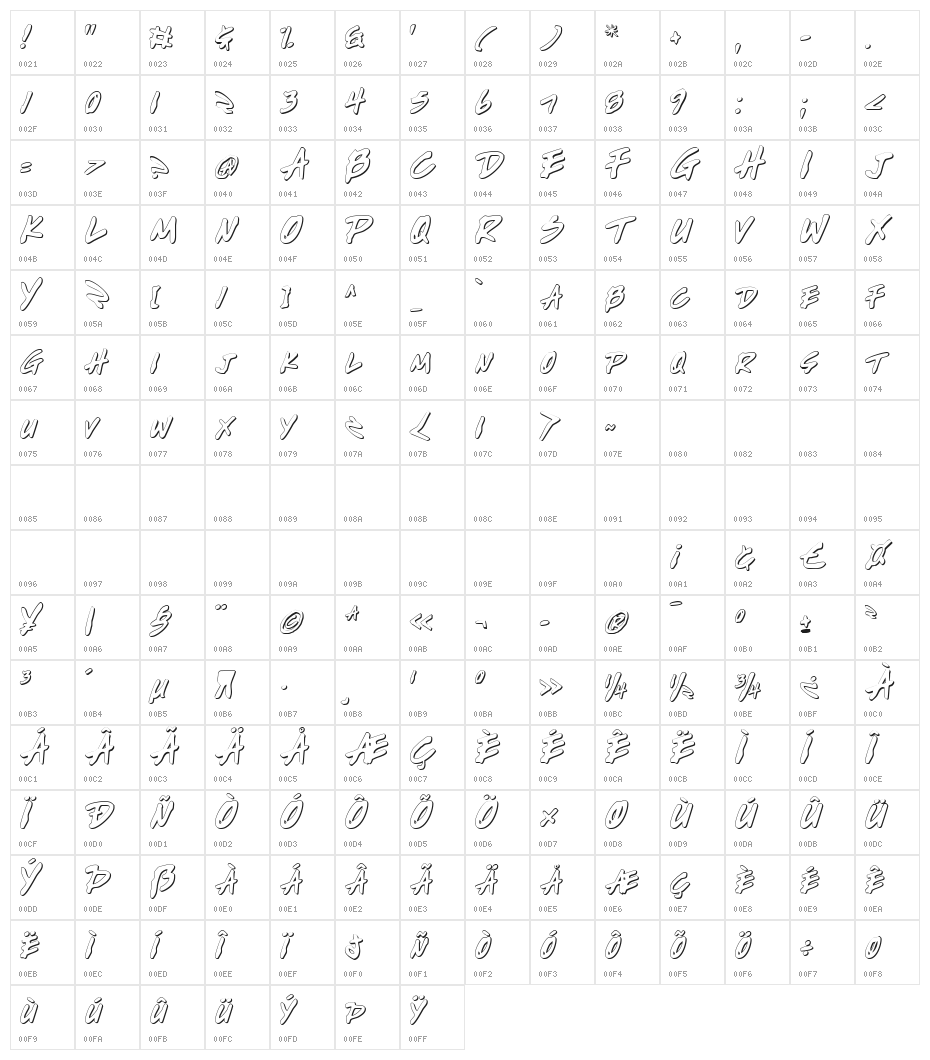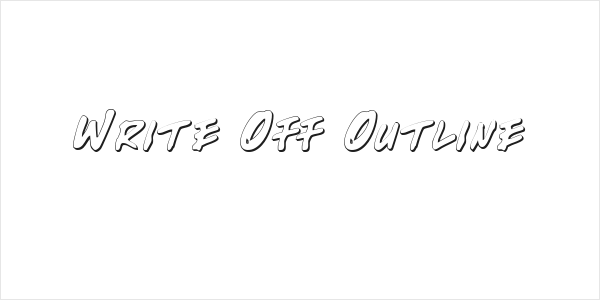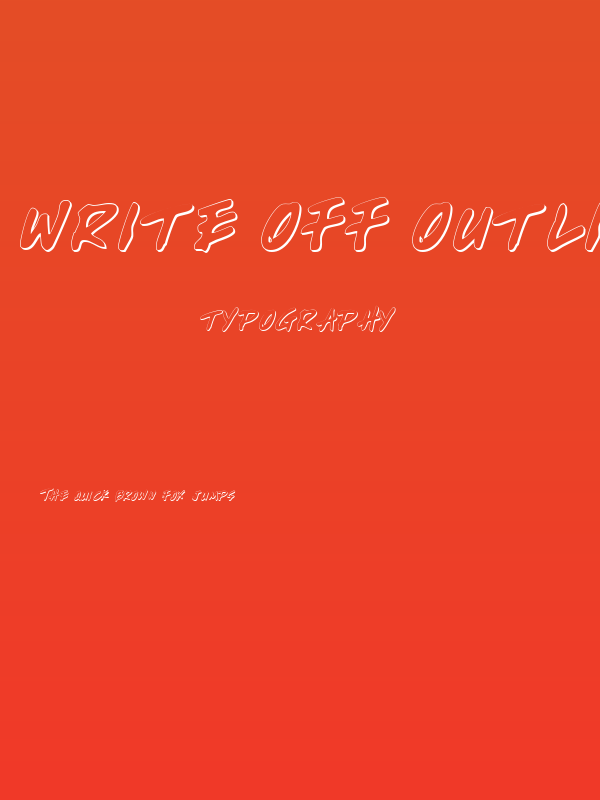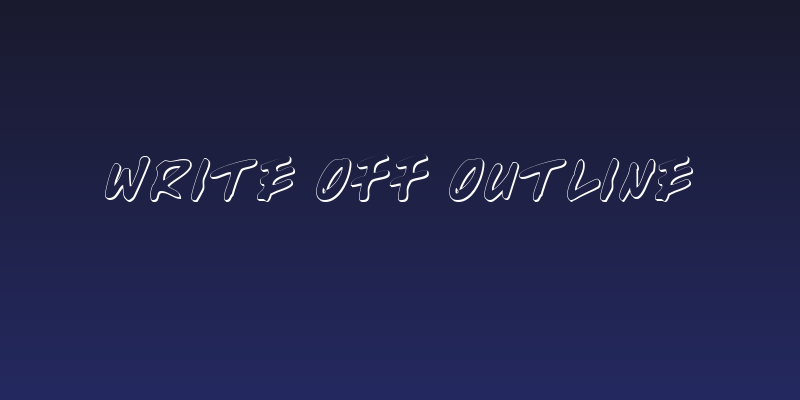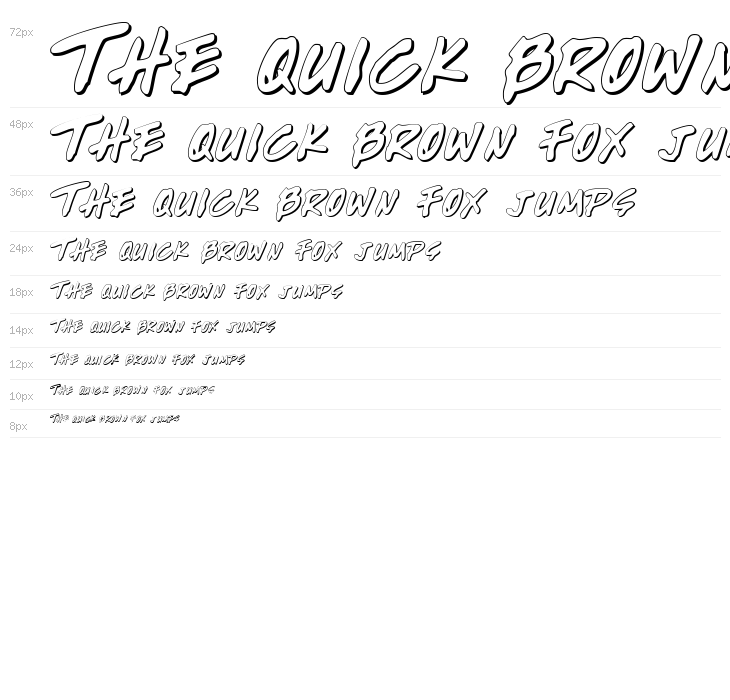
Write Off Outline Font
Write Off Outline Description
This font features a bold, playful style with a dynamic and energetic feel. The characters are outlined, giving them a three-dimensional appearance that stands out. The strokes are thick and consistent, providing a sense of stability and strength. The font maintains a casual, handwritten look, which adds a personal touch to any design. The uppercase and lowercase letters are well-balanced, and the numbers are clear and easy to read. Special characters are included, enhancing its versatility. The overall design is both modern and fun, making it suitable for a variety of creative projects.
Overall StylePlayful, Modern
Proposed ProjectsIdeal for posters, logos, children's books, and playful branding.